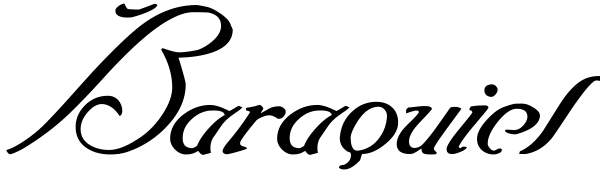
Baraquiel
Baraquiel is based on an interesting style of calligraphic script we found in a turn-of-the-century magazine ad. It is much more acutely slanted than most scripts, and has pretty dramatic variations in weight. Nonetheless it has high readability and...